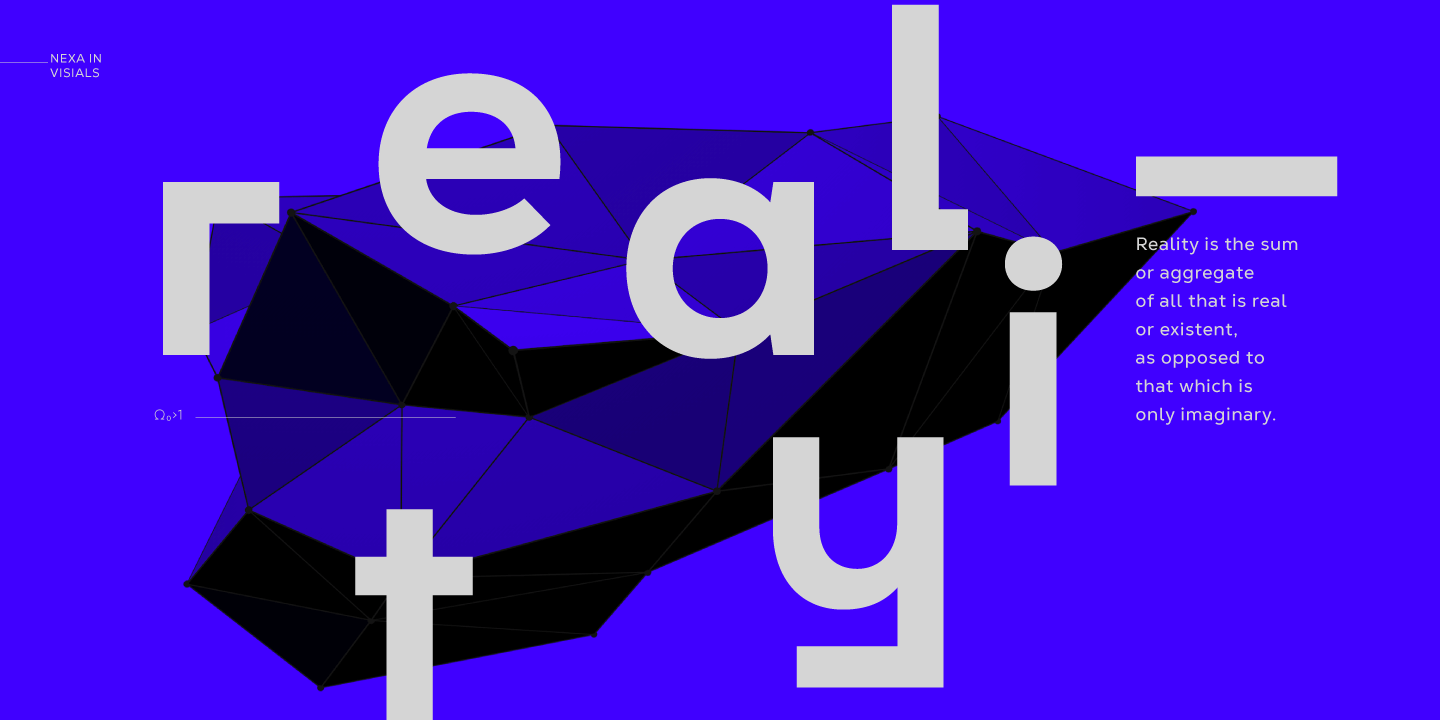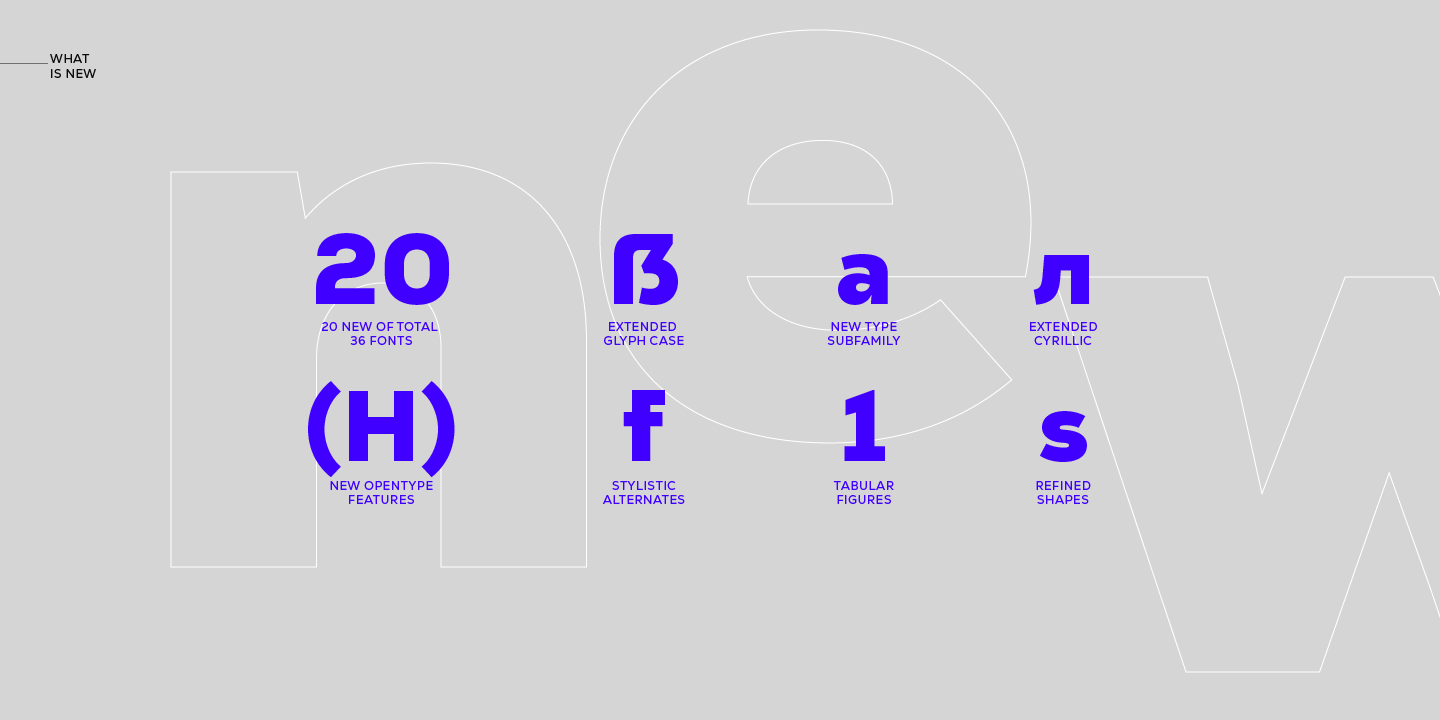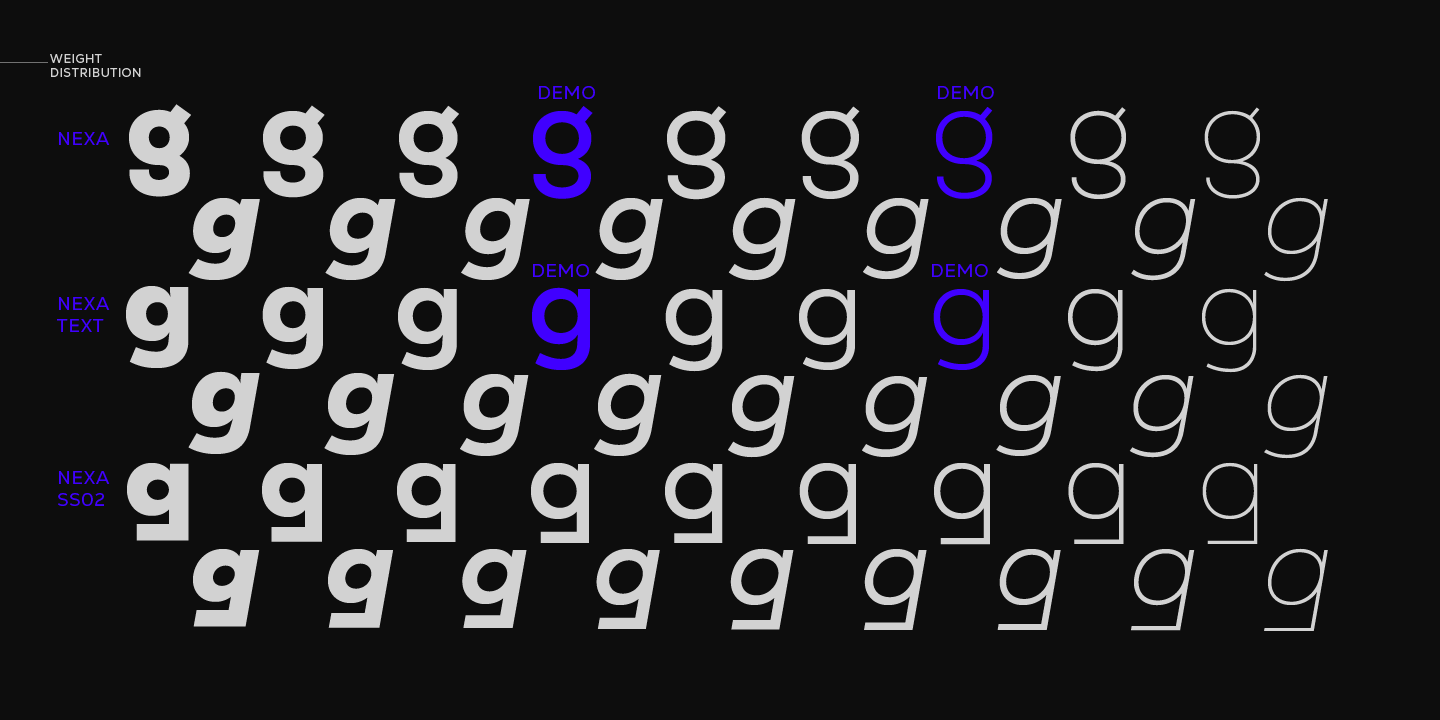
About Nexa
The Nexa family includes 16 styles & weights – eight uprights with eight italics. It is characterized by excellent legibility in both – web & print design areas, well-finished geometric designs, optimized kerning etc. Nexa is most suitable for…